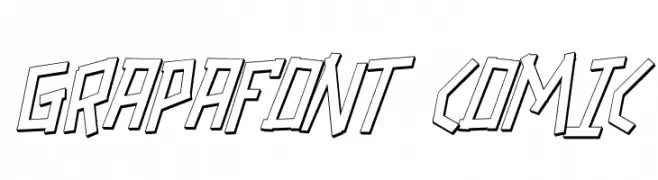
A playful, bold font with a unique shadow effect for a three-dimensional look.
A bold, decorative font with an inline, three-dimensional style.
A bold, playful font with a three-dimensional, shadowed style.